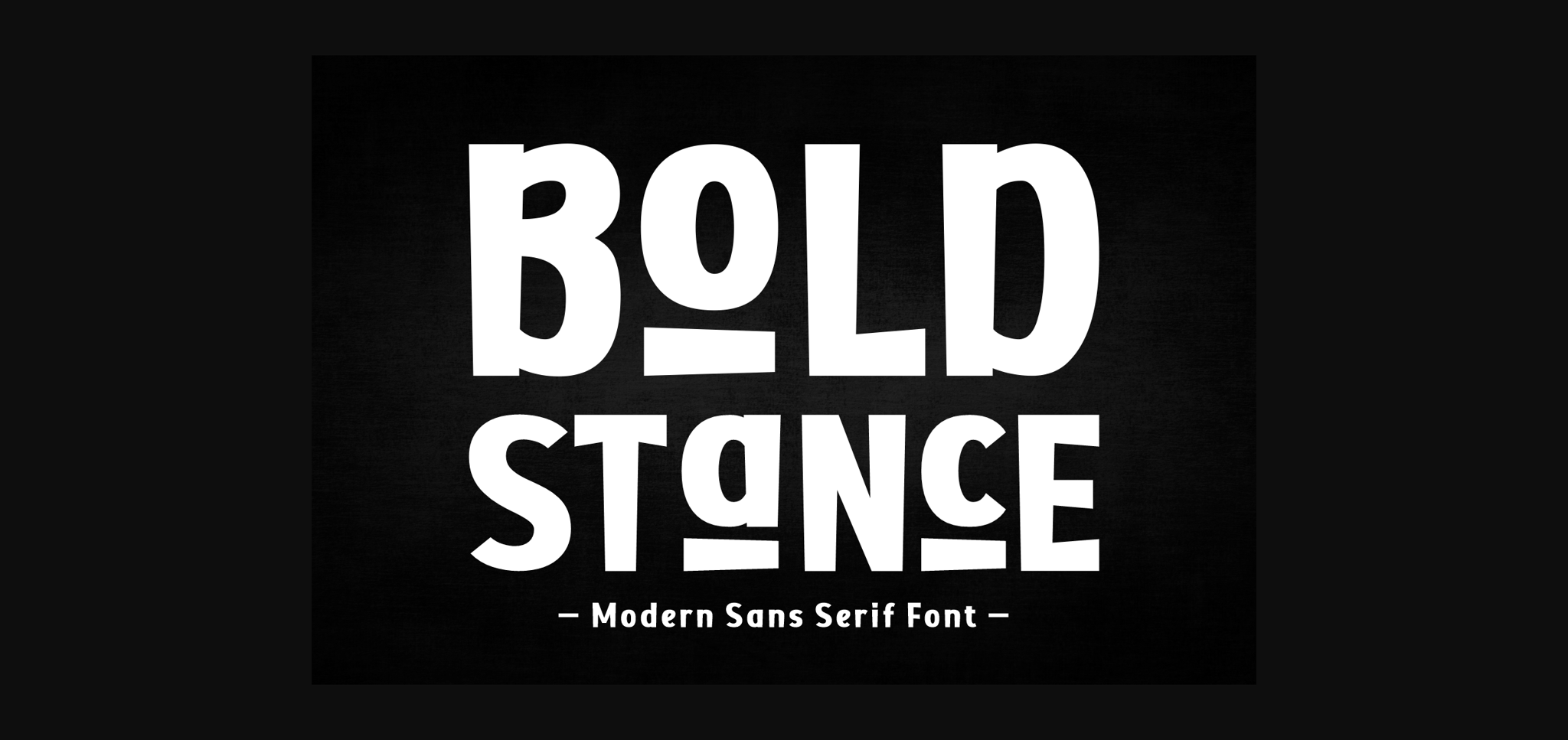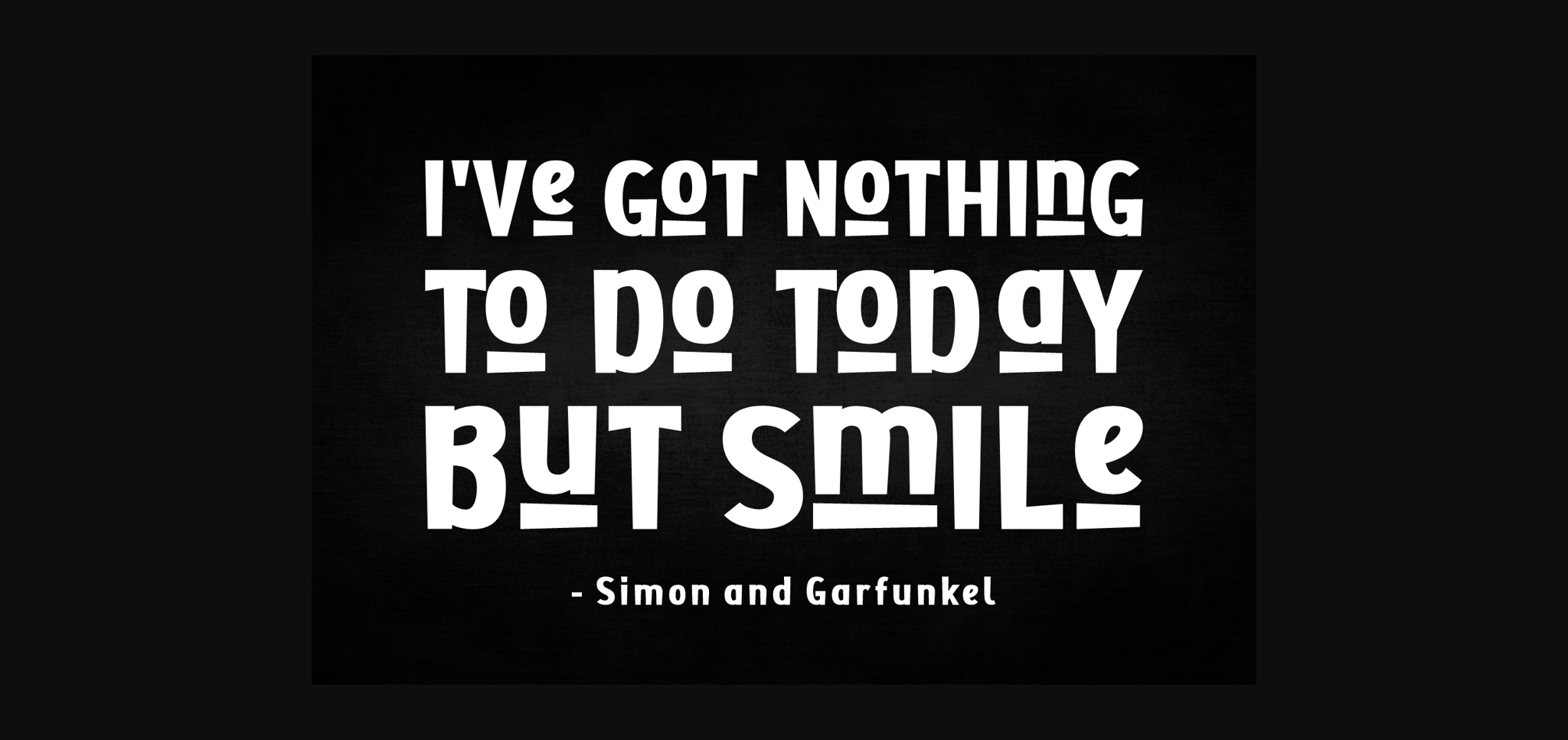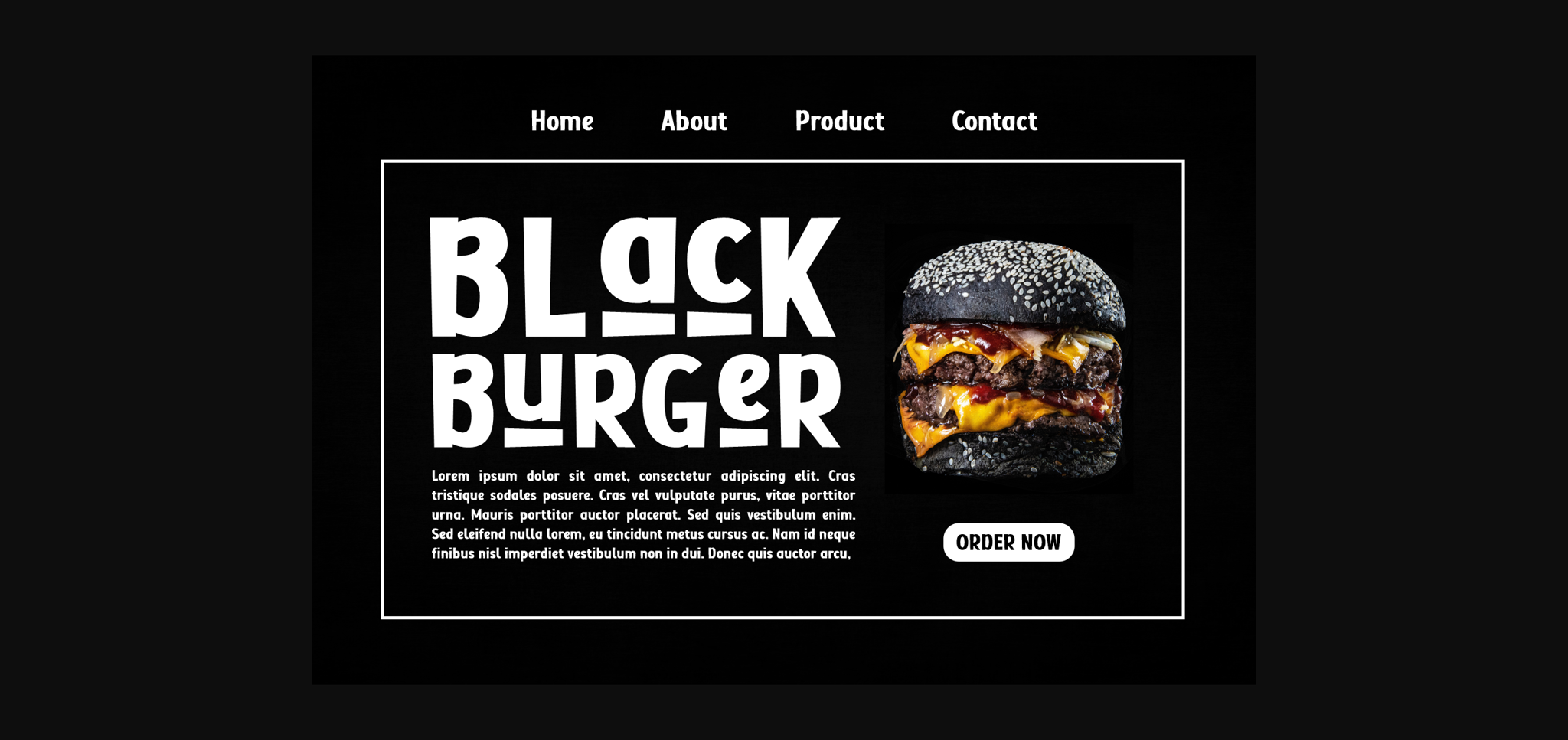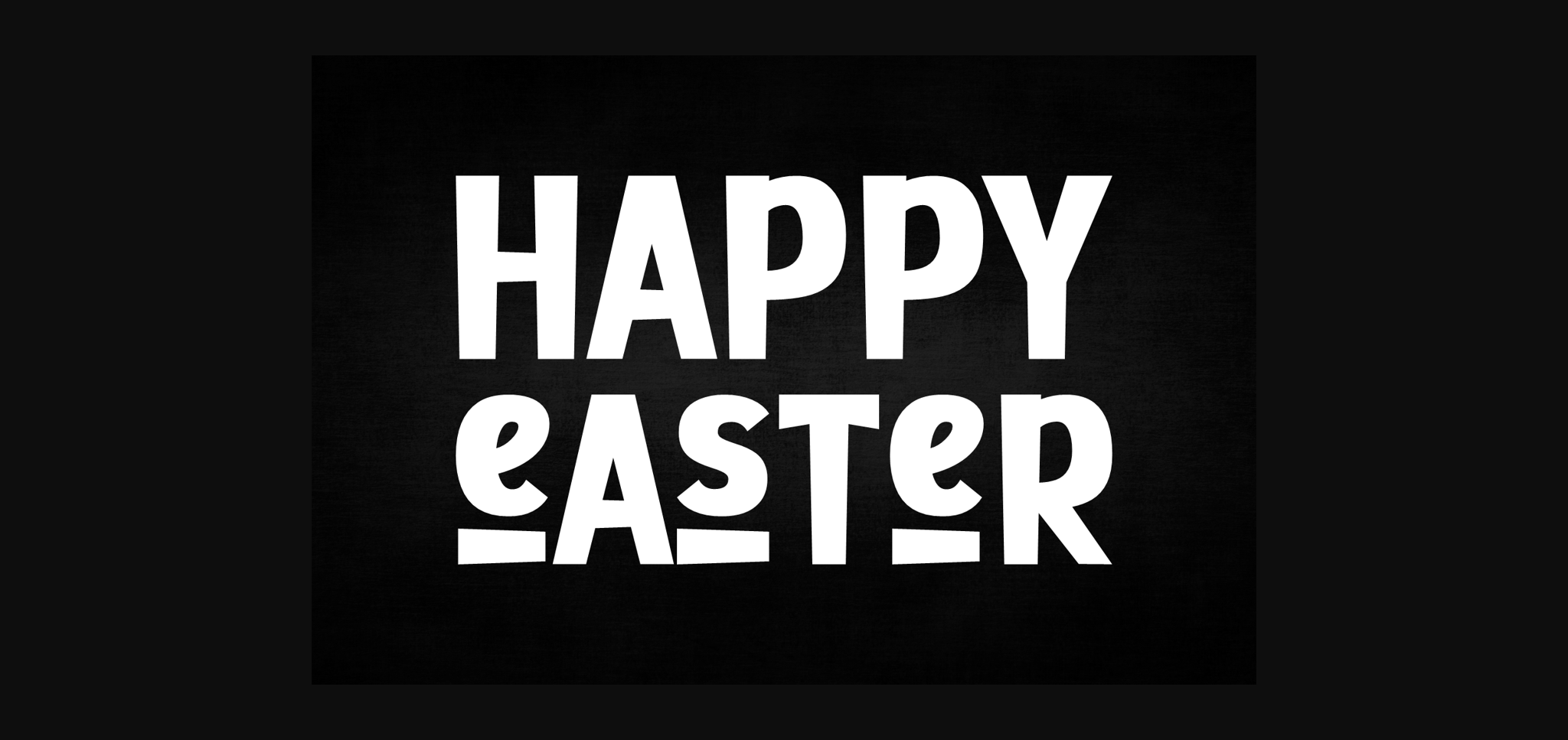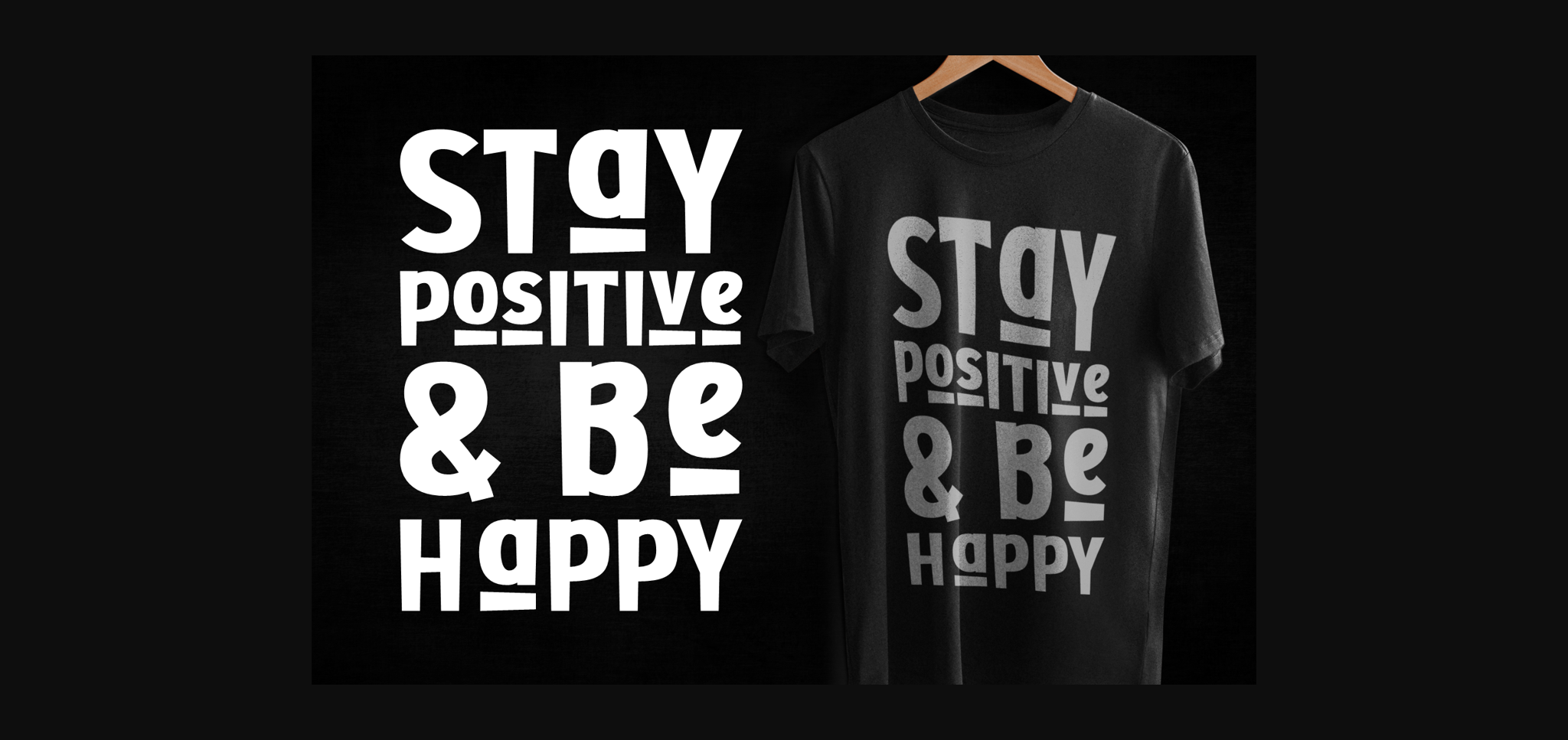
Bold Stance Font
About Bold Stance Font
Bold Stance is a modern sans serif font. It’s strong, clear, and great for making a statement in your designs. Whether you’re creating logos, posters, or anything else, Bold Stance adds a confident touch to your text. With its simple yet bold appearance, it stands out and grabs attention effortlessly.